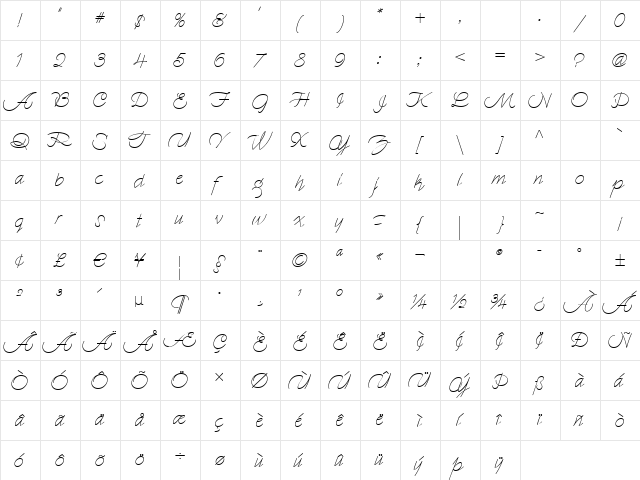
MyDearWatsonNF Medium Font Preview
MyDearWatsonNF Medium
Design Context for MyDearWatsonNF Typeface
MyDearWatsonNF takes a measured approach to typography — its balanced proportions and neutral character make it a reliable workhorse for both digital and print work.